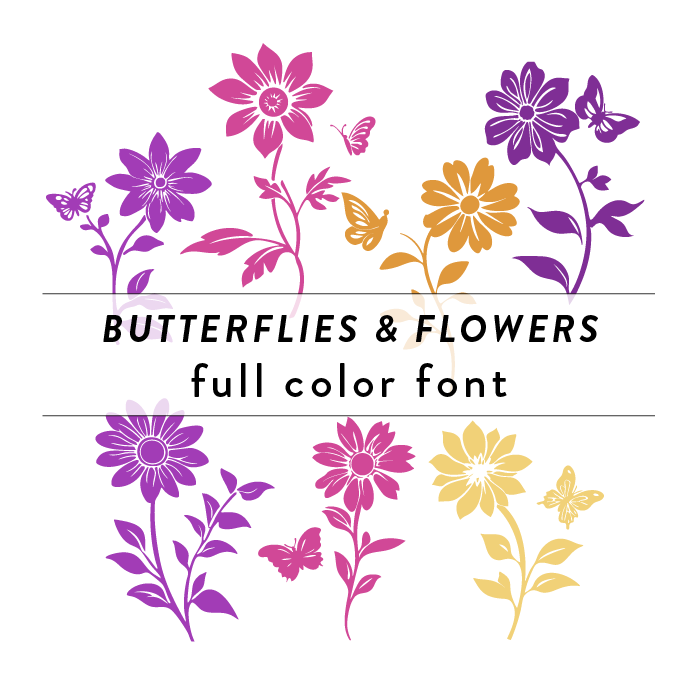
Flowers & Butterflies Full Color Font is a whimsical and colorful craft font that features intricate floral and butterfly designs. This font is perfect for adding a playful and artistic touch to any project related to nature, spring, or creativity. Its vibrant colors and detailed elements make it stand out and add a unique flair to any design. This font is a OTF craft font that will appear in color only when used with the silhouette software.